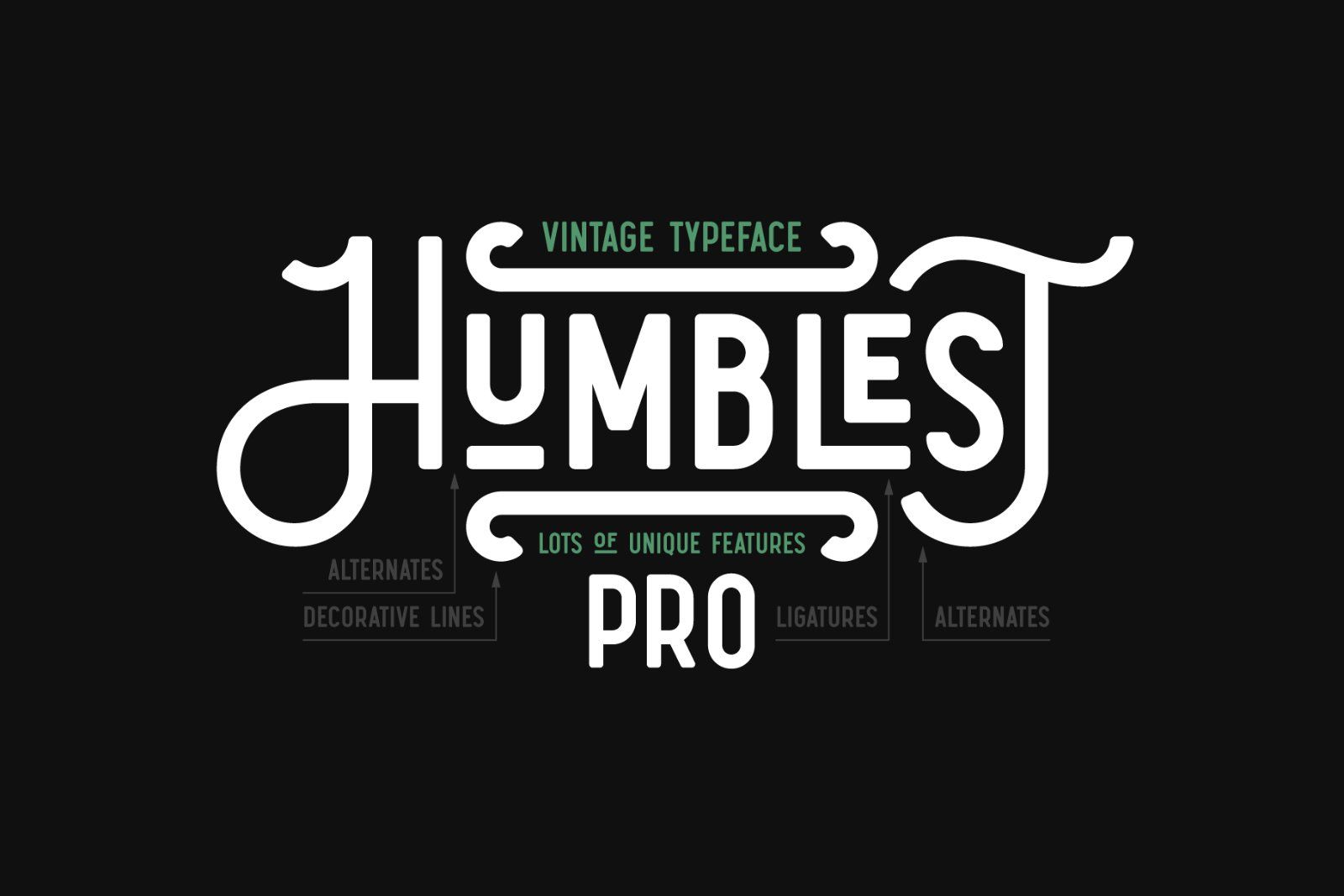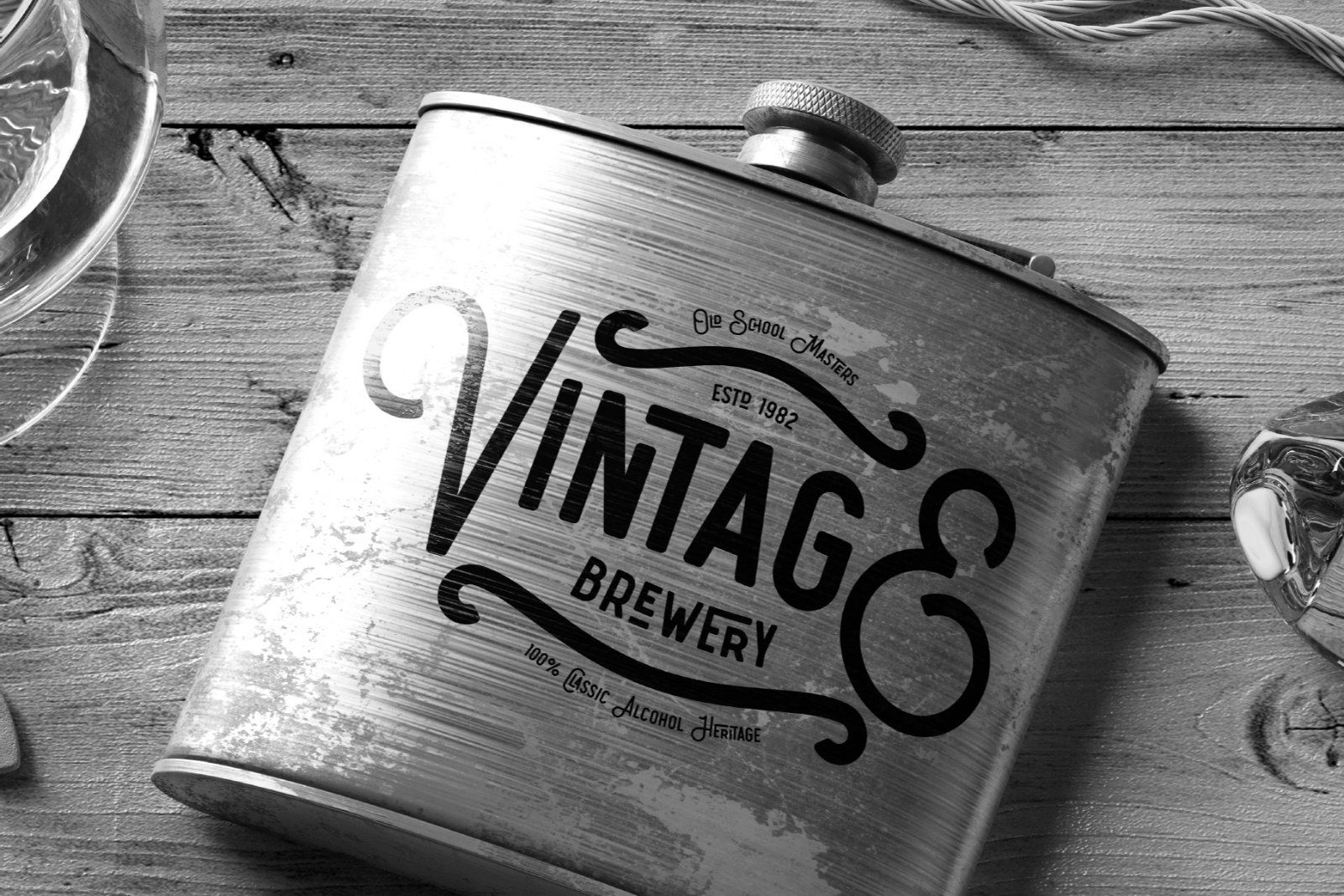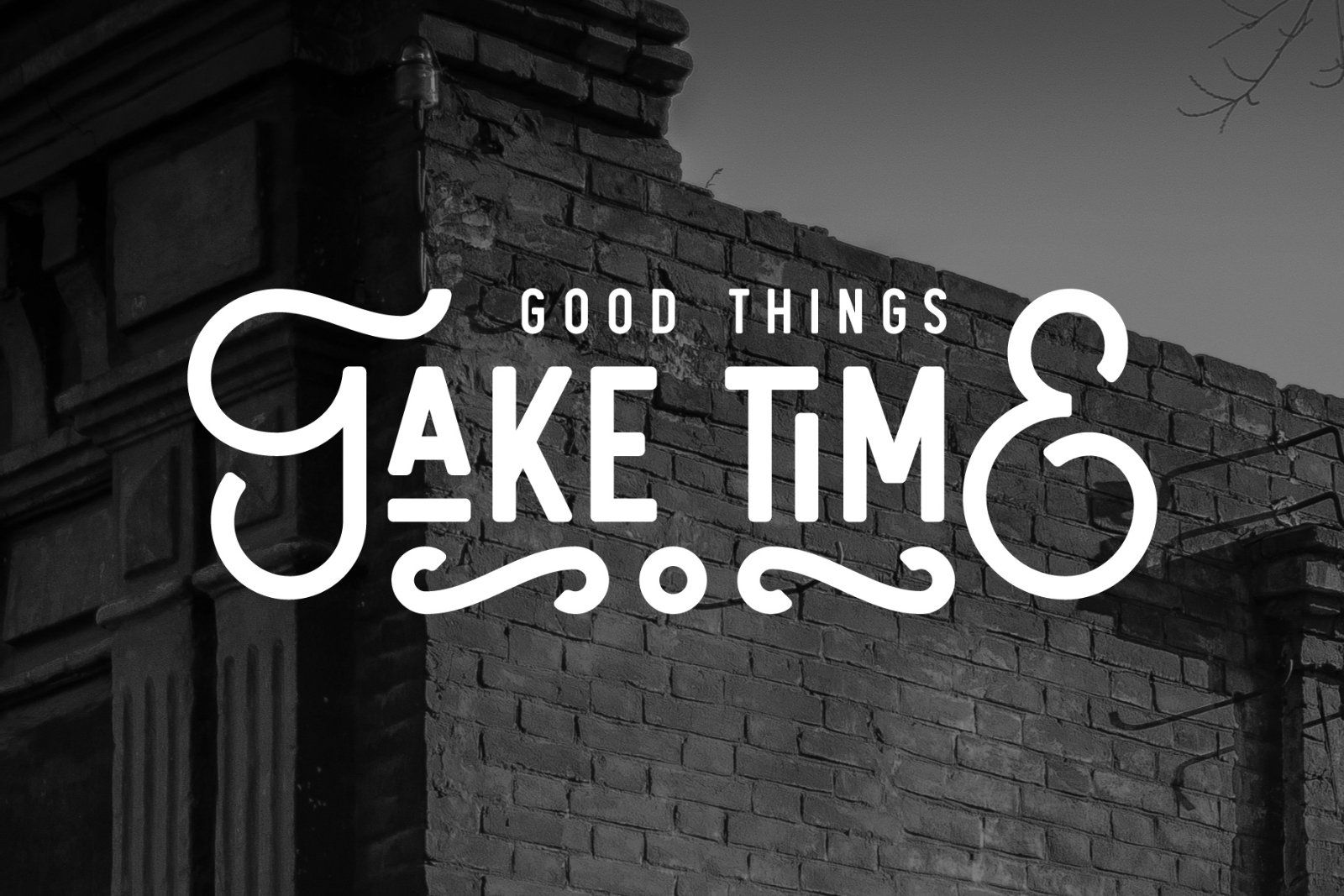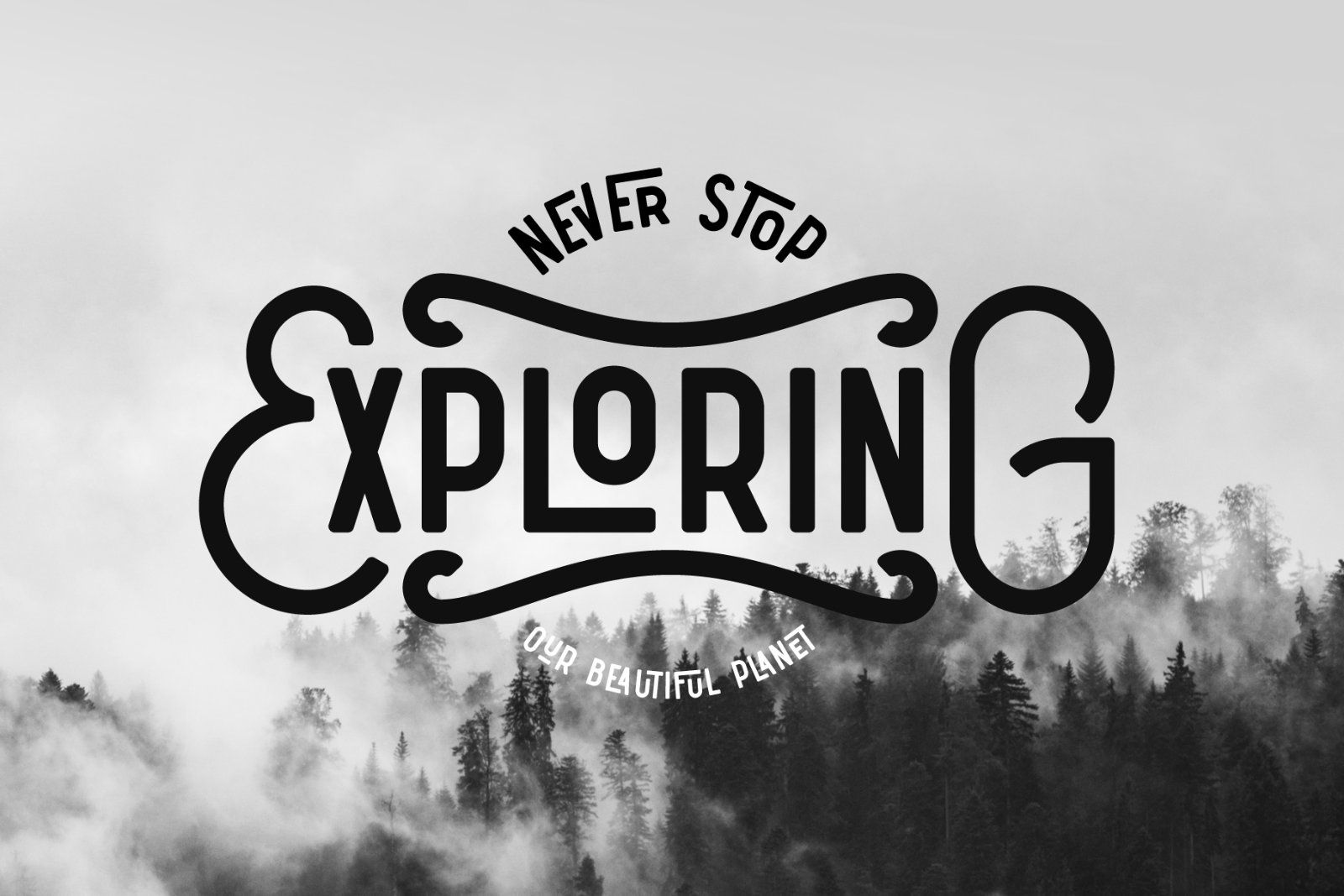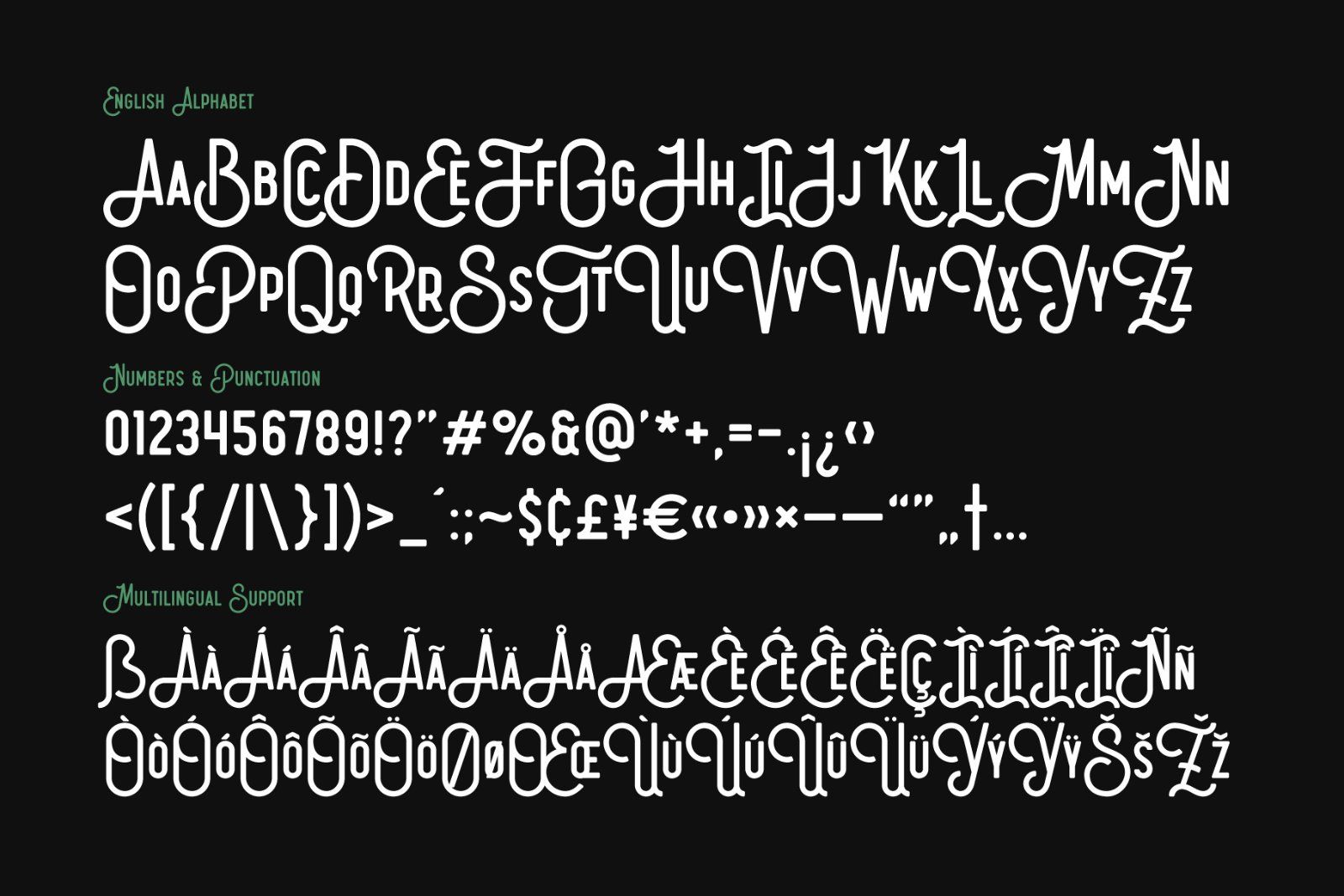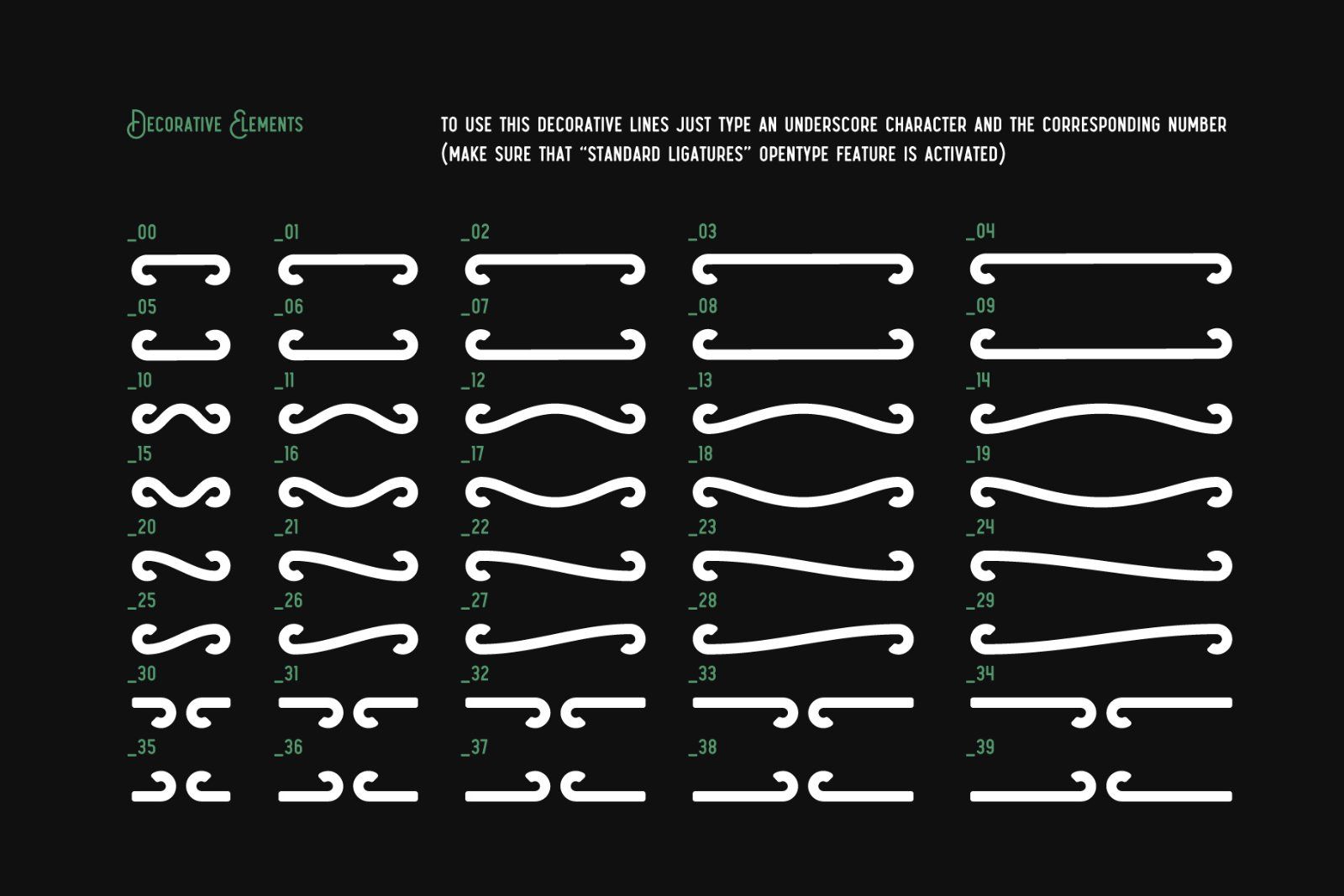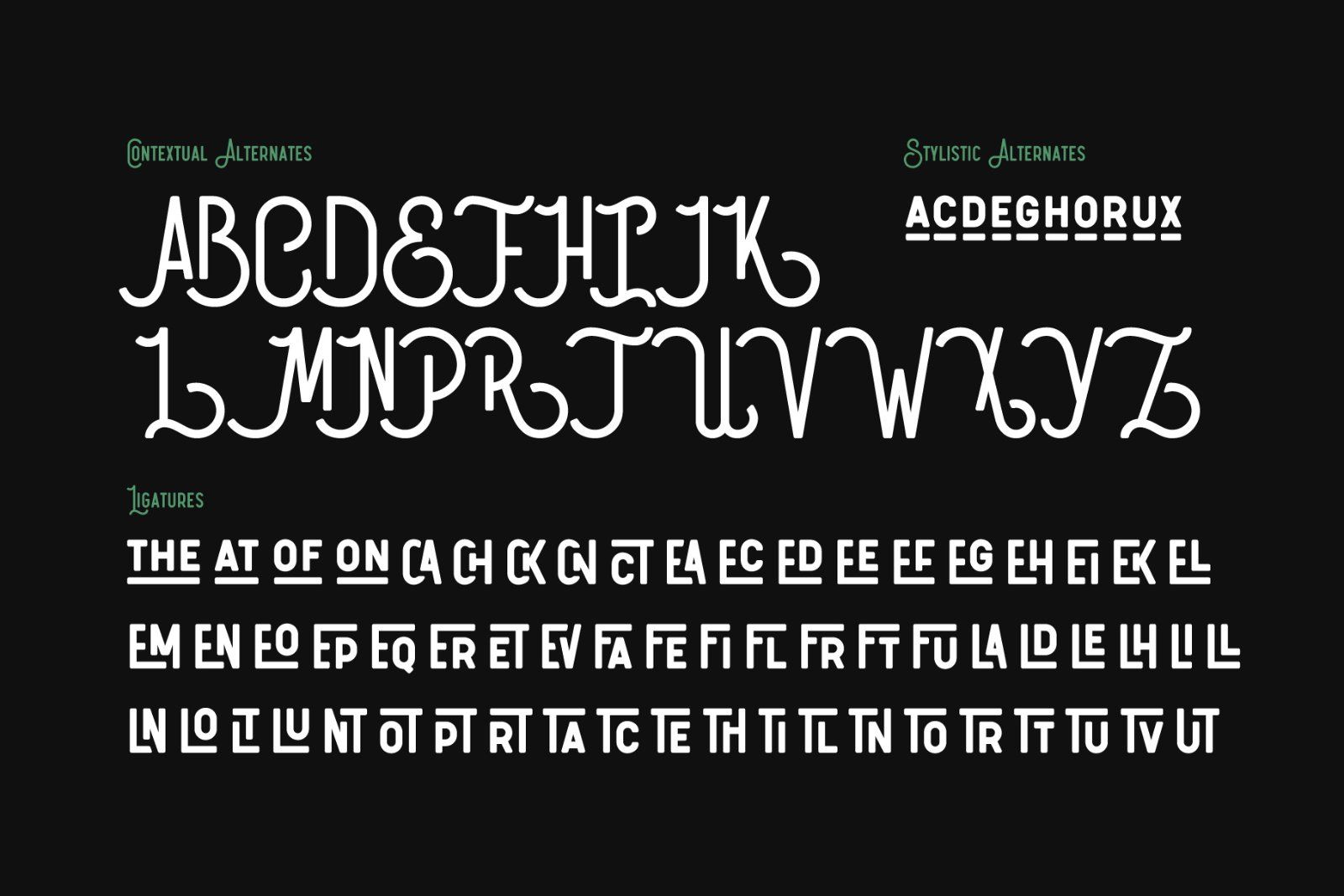
Hi. Introducing a new version of my one of the most popular fonts. Now Humblest Pro includes much more characters and has west European multilingual support. This font has a smooth and clean shape without any grain unlike the original one.
Almost all of the capital letters has two version, for the beginning and for the ending of the word. The final alternative letter will be automatically replaced if you type a big last letter in the word (check out if the "contextual alternates" OpenType feature is activated).
Decorative swashes are now a part of the font. To use this decorative lines just type an underscore character and the corresponding number from _00 to _39 (make sure that “standard ligatures” OpenType feature is activated).
Also a lot of ligatures for small letters are available, please check out the previews with all available glyphs.